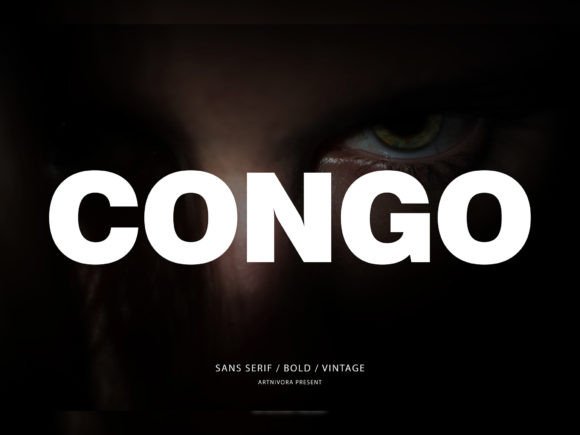
Are you tired of searching for the perfect font to enhance your design projects? Look no further because Congo - Sans Serif Font is here to elevate your creativity to new heights! Created by the talented artnivora.std, this font is not just another ordinary typeface - it's a masterpiece that will captivate your audience and leave a lasting impression.
With its clean and modern design, Congo is the ultimate choice for all your design needs. Whether you're working on a logo design, a magazine layout, a social media post, or even a brochure, Congo will bring your vision to life with its versatility and elegance. Say goodbye to mundane fonts and hello to a font that truly stands out from the crowd.
One of the key features of Congo is its extensive character set. With both uppercase and lowercase letters, punctuation marks, and numerals, this font allows you to express yourself fully and effortlessly. No matter what message you want to convey, Congo has the perfect letterforms to make it shine.
What sets Congo apart from other fonts is its ability to evoke emotions and create a connection with your audience. Its simplicity exudes sophistication, while its clean lines convey a sense of professionalism. When your audience sees your design with Congo, they won't be able to resist its captivating charm.
Imagine the impact this font will have on your brand identity. Your logo will exude confidence and modernity, attracting attention and leaving a memorable impression. Your magazine layout will be visually stunning, making readers want to flip through every page. Your social media posts will stand out from the cluttered feeds, drawing users in and increasing engagement. And your brochures will become powerful marketing tools, effortlessly conveying your message and generating leads.